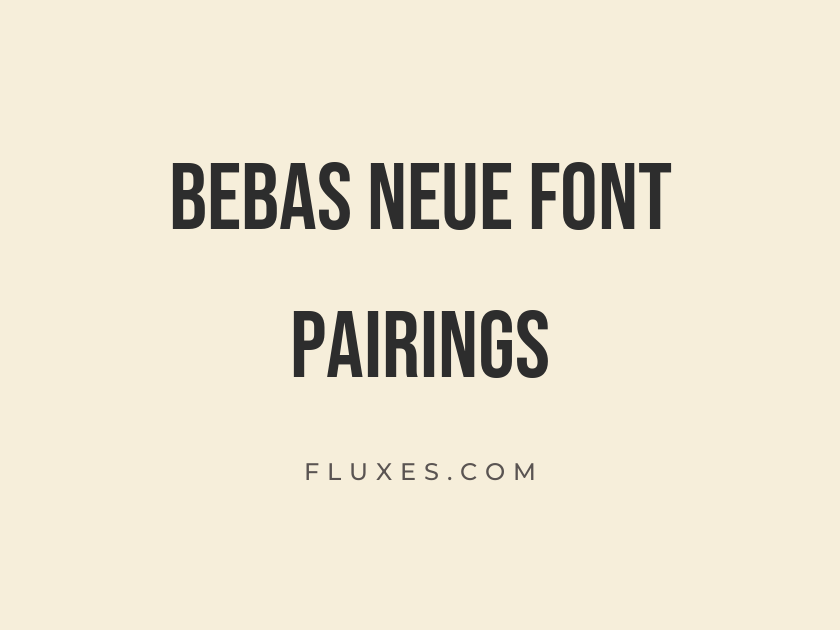
10 Best Font Pairings for Bebas Neue
Bebas Neue is a tall, tightly condensed all-caps display face with a bold, poster-like presence. Because it carries so much visual weight on its own, it works best when paired with a calm, versatile body font that gives readers a place to rest. These font combinations for Bebas Neue focus on contrast in structure and shared clarity, the kind of Google Fonts pairings that hold up in headlines, posters, and web interfaces alike.
1. Bebas Neue + Karla
BUILT FOR BOLD STATEMENTS
A grounded grotesque that keeps long paragraphs easy to read after a loud headline.
Karla’s low contrast and slightly quirky details balance the rigidity of Bebas Neue without fighting it for attention. This pairing suits modern branding projects, product pages, and editorial sites that want a punchy hook followed by relaxed reading.
2. Bebas Neue + Open Sans
STRONG HEADLINES, STEADY TEXT
A workhorse humanist sans that reads comfortably at length in articles and interfaces.
Open Sans was drawn for clarity at small sizes, which makes it an ideal counterweight to a display font built for maximum size and impact. The combination feels efficient and trustworthy, good for dashboards, reports, and utility-driven websites.
3. Bebas Neue + Merriweather
POSTER READY TYPOGRAPHY
A sturdy serif with generous curves that adds warmth beneath a stark condensed headline.
Pairing a geometric condensed sans with a text serif creates genuine contrast in structure and mood, the display shouting while the serif speaks in a normal voice. This works well for magazine features, event promotion, and editorial layouts that want a vintage poster feel.
4. Bebas Neue + Lora
MODERN EDGE, CLASSIC EASE
A calligraphic serif with moderate contrast that softens the sharpness of a condensed headline.
Lora’s brushed curves give a sense of craft that plays nicely against Bebas Neue’s mechanical precision, so the two never feel like they came from the same mold. Consider this combination for lifestyle blogs, boutique brand sites, or invitation-style landing pages.
5. Bebas Neue + Nunito Sans
LOUD TITLE, CLEAR COPY
A rounded, friendly sans that keeps supporting text approachable and easy to scan.
Nunito Sans has soft terminals and generous spacing that offset the tight, angular rhythm of Bebas Neue’s capitals. The pairing feels casual and welcoming, well suited to community sites, fitness brands, or youth-oriented marketing.
6. Bebas Neue + PT Sans
IMPACT AT FIRST GLANCE
A humanist grotesque with open counters that stays legible across devices and sizes.
PT Sans shares a practical, no-nonsense character with Bebas Neue, so the pairing reads as consistent rather than clashing despite the difference in width and weight. It suits news sites, sports coverage, and other content that needs both punch and readability.
7. Bebas Neue + Vollkorn
RAW ENERGY, REFINED TEXT
A traditional book serif whose measured proportions calm the intensity of a shouted headline.
Setting a text-heavy serif like Vollkorn beneath Bebas Neue creates a deliberate high-low contrast, industrial versus literary, that gives a layout personality. This combination works nicely for craft breweries, record labels, and other brands leaning into a rugged, handmade feel.
8. Bebas Neue + Mulish
TIGHT TYPE, OPEN VOICE
A neutral, low-contrast sans that lets a display headline keep all the visual drama.
Mulish stays intentionally understated, so it never competes with Bebas Neue’s condensed capitals for attention; instead it simply carries the message. That restraint makes this pairing dependable for startup landing pages, app marketing, and minimal portfolio sites.
9. Bebas Neue + Noto Sans
CONDENSED POWER MEETS CALM
A clean, highly legible sans built for consistency across long stretches of body text.
Noto Sans offers wide language support and steady proportions, making it a safe, versatile partner for a display font as stylized as Bebas Neue. This pairing is a practical choice for multilingual sites, documentation, and global brand pages.
10. Bebas Neue + Rubik
SHARP HEADLINE, SOFT LEDE
A rounded geometric sans that adds a touch of warmth beneath a bold condensed title.
Rubik’s slightly rounded corners echo the geometric bones of Bebas Neue while softening the overall tone, so the pair reads as related but not identical. It fits well on tech products, event pages, and playful e-commerce brands.
Tips for pairing with Bebas Neue
Keep Bebas Neue for short bursts of text such as headlines, labels, and calls to action; its tight letterforms lose clarity in long passages.
Give the body font generous line height, since Bebas Neue’s compressed shapes benefit from an airy contrast below.
Limit yourself to one display and one body font per layout; Bebas Neue already supplies plenty of visual weight on its own.